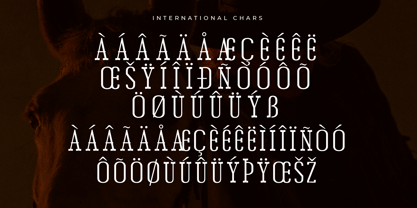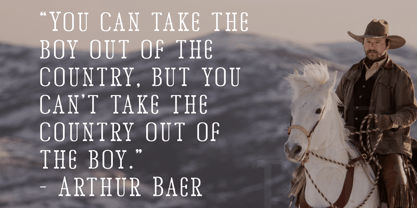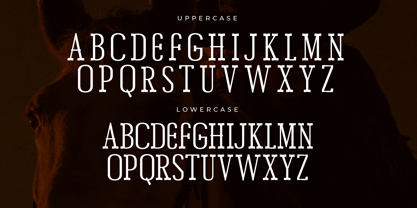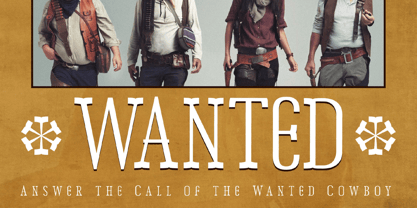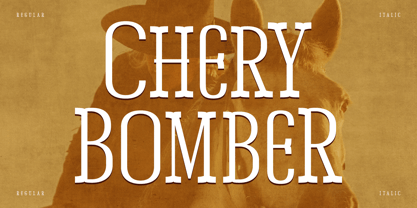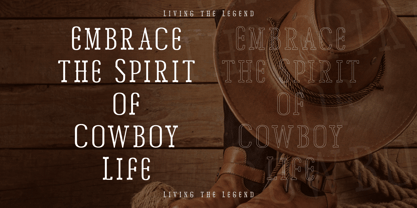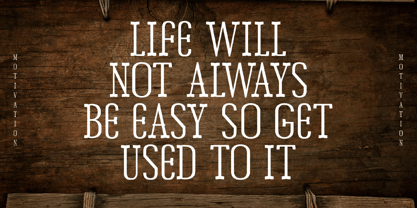
Chery Bomber
von Letterena Studios
Die Schriftfamilie Chery Bomber wurde von Heru Utama Putra entworfen und von Letterena Studios veröffentlicht. Chery Bomber enthält 2 Stile und Familienpaketoptionen.
Chery Bomber is a modern and classic typeface that has its own unique style and modern look. This typeface is perfect for an elegant & luxurious logo, book or movie title design, fashion brand, magazine, clothes, lettering, quotes, and so much more.
Designer: Heru Utama Putra
Herausgeber: Letterena Studios
Foundry: Letterena Studios
Eigentümer des Designs: Letterena Studios